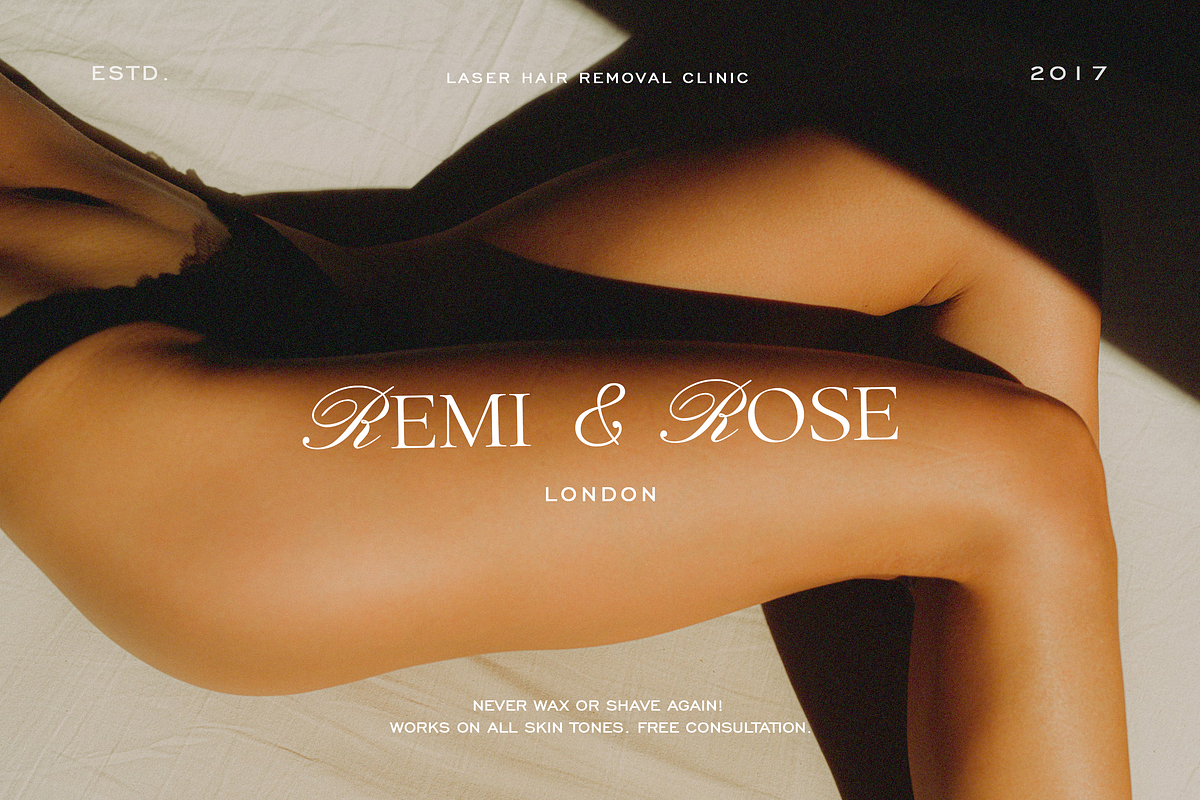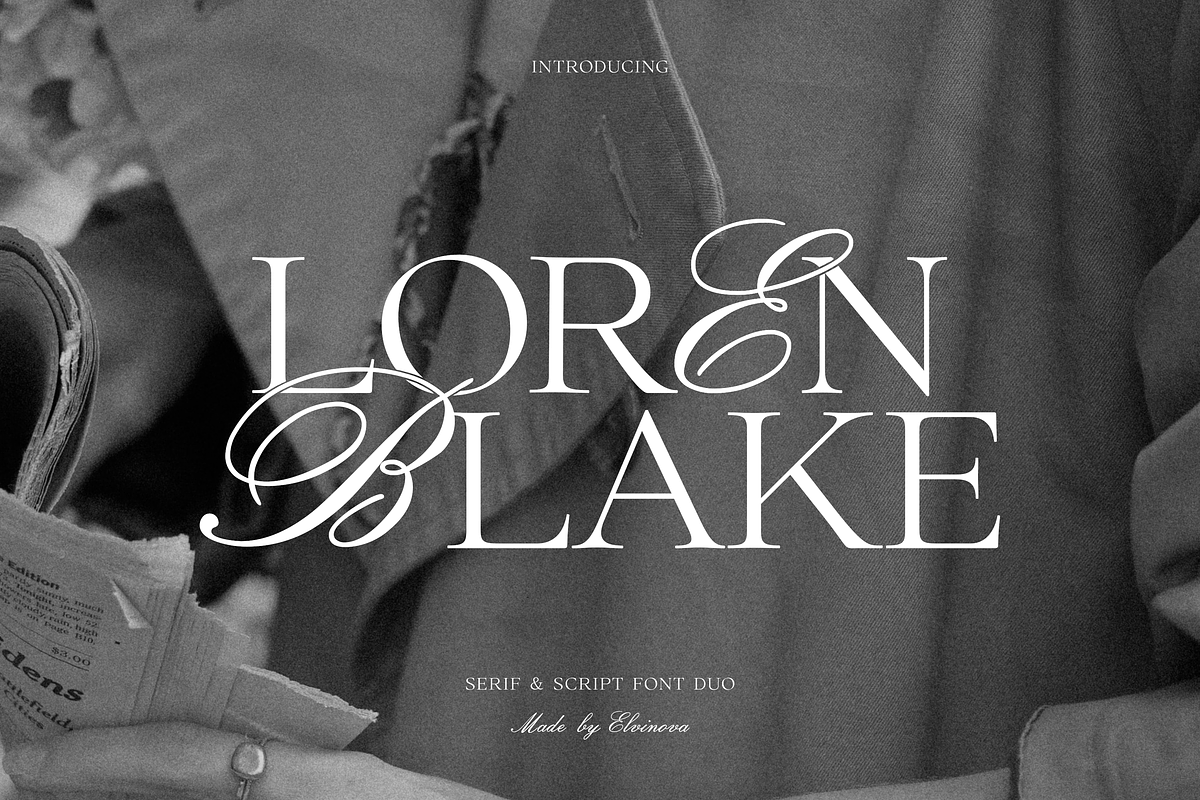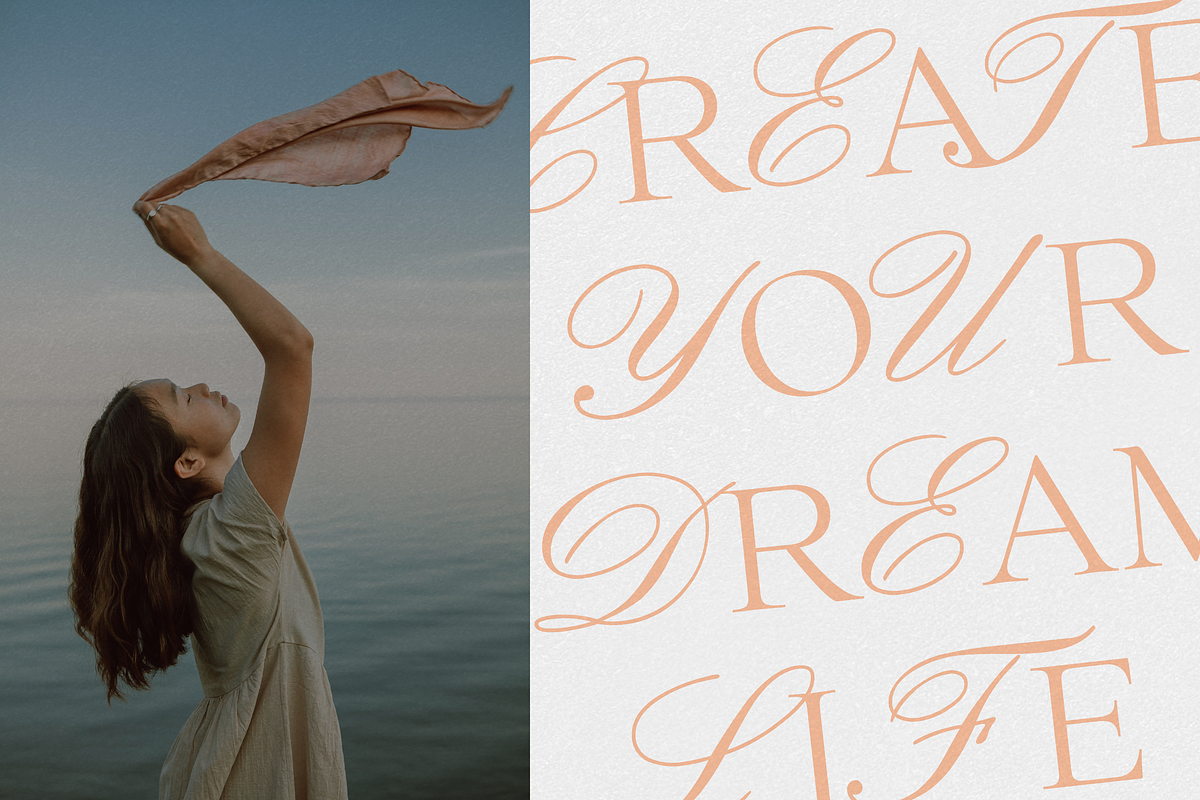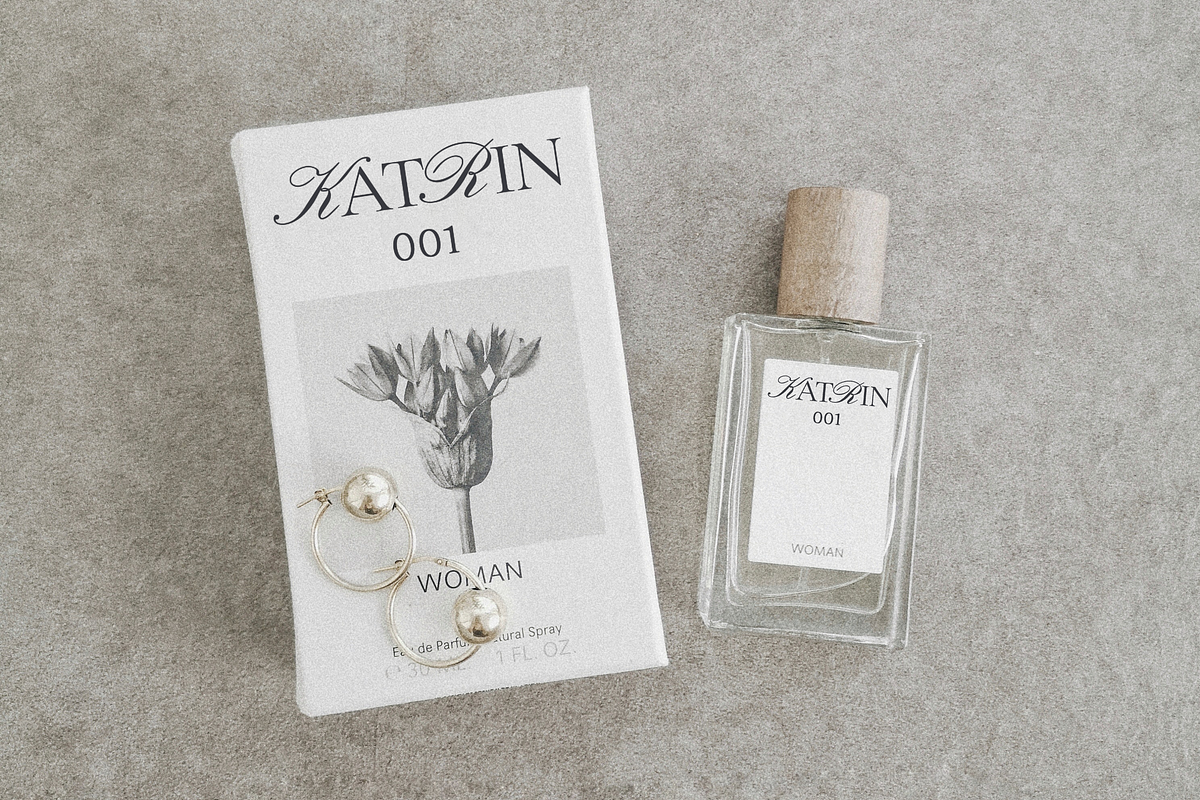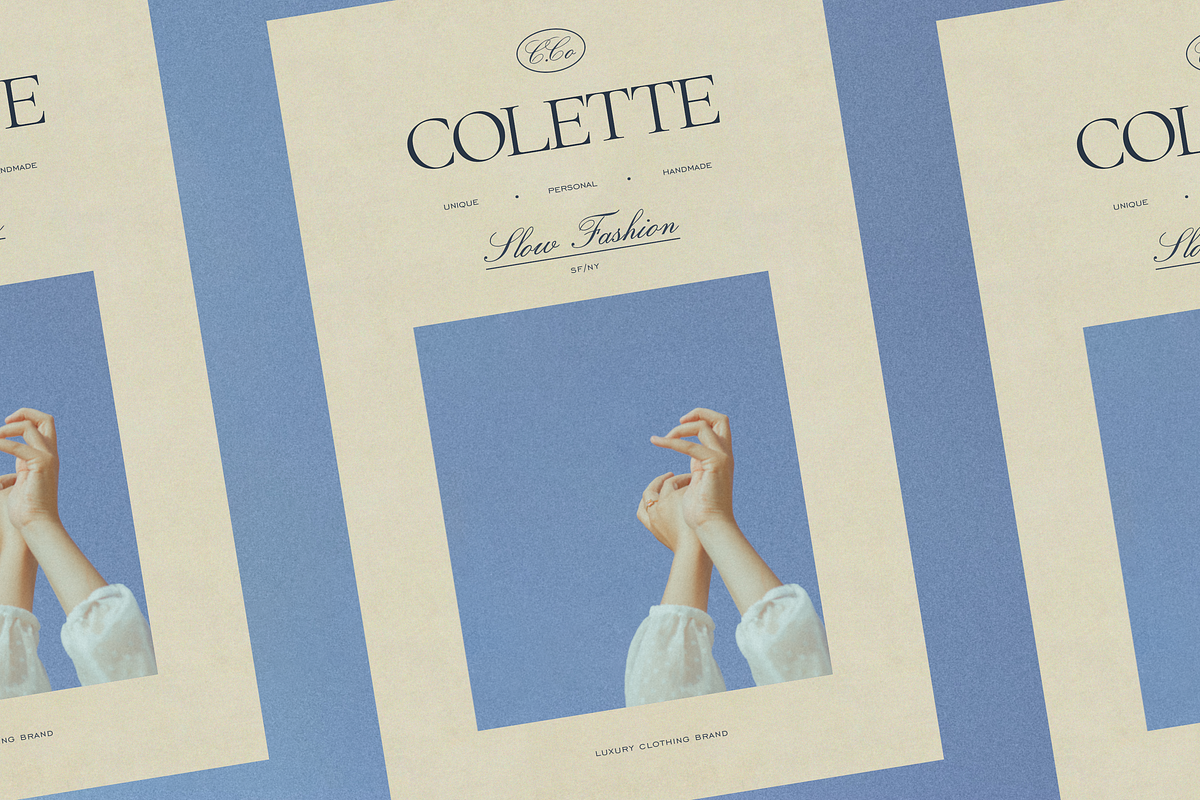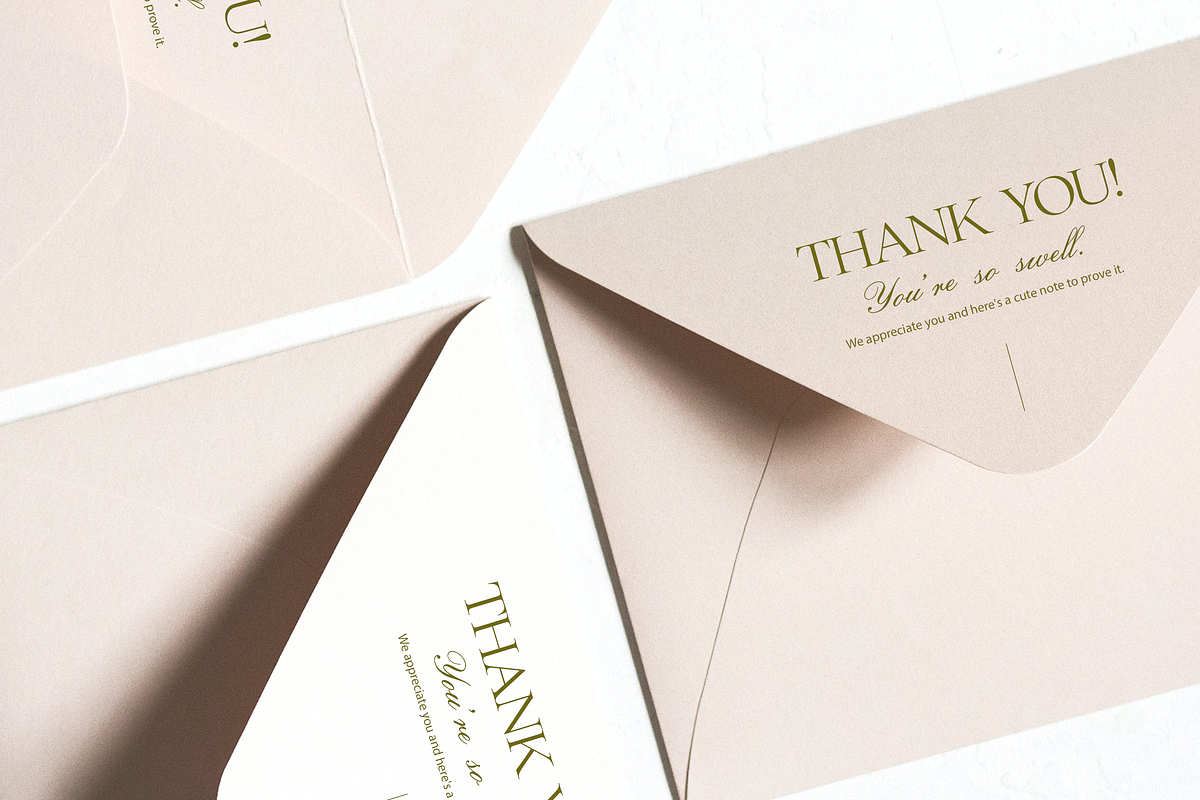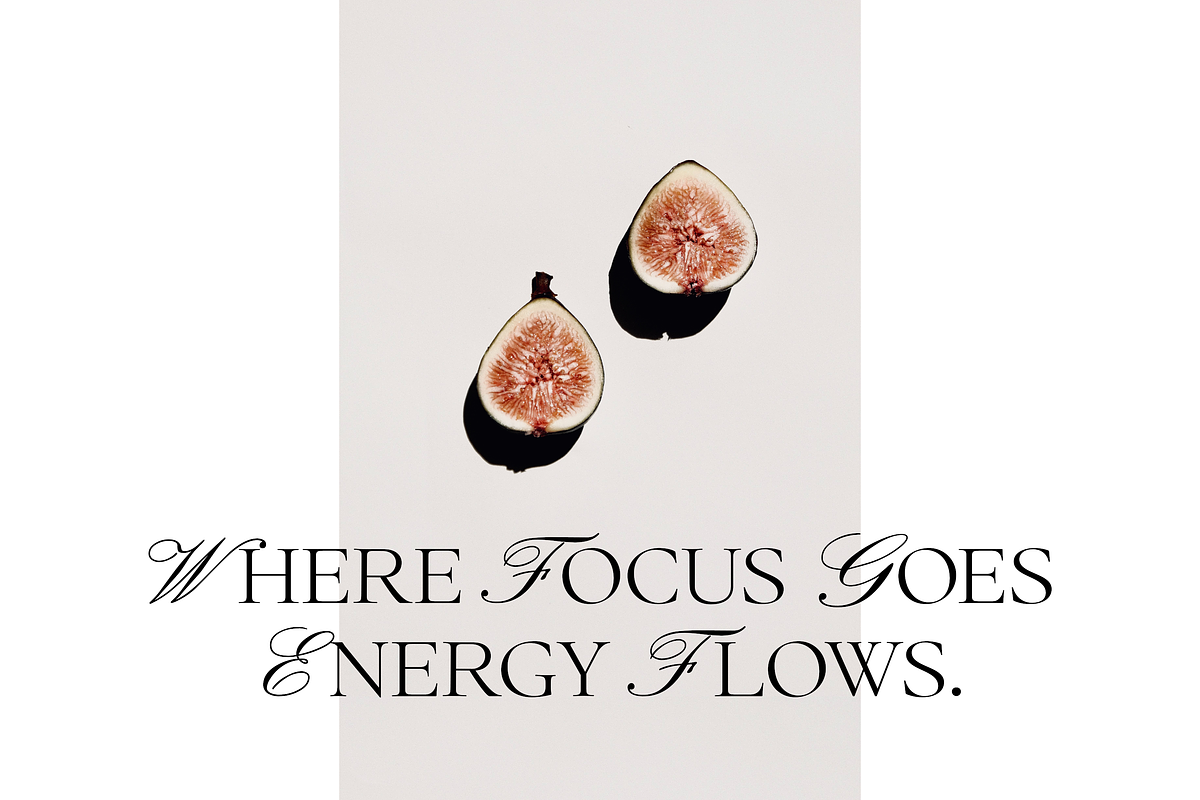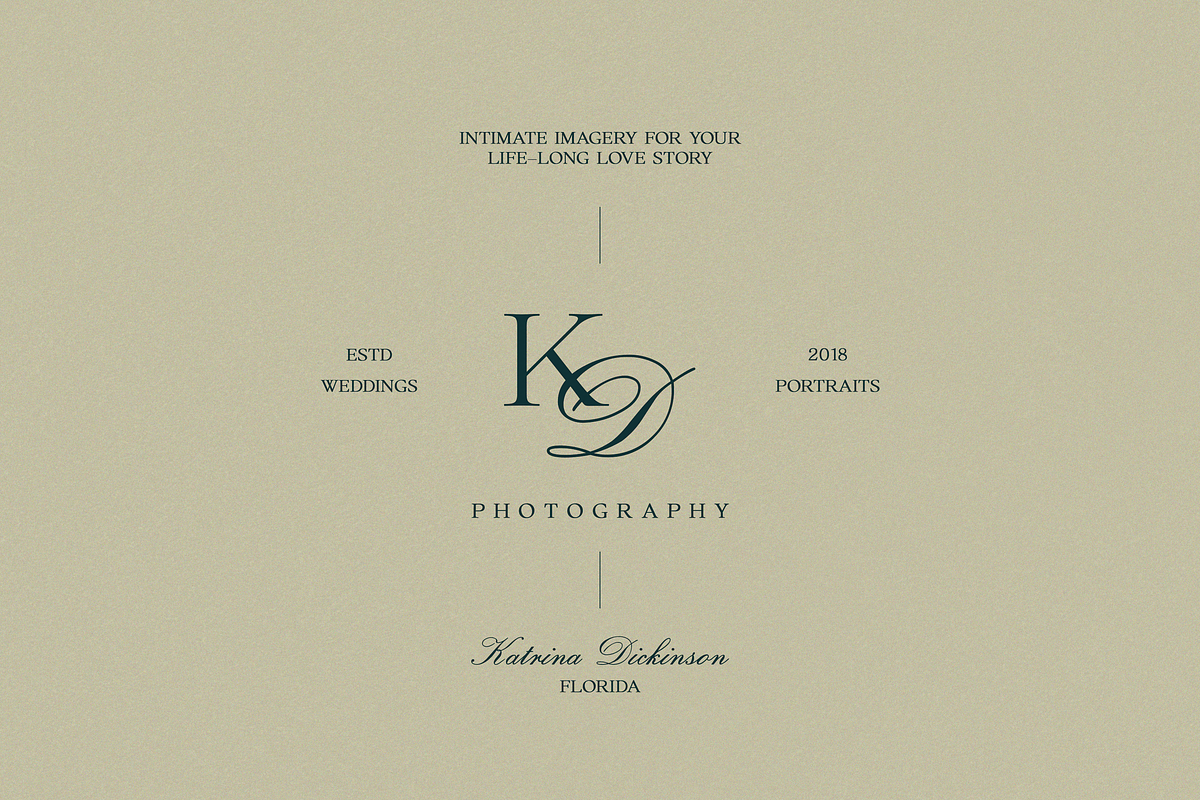
Loren Blake | Font Duo
Loren Blake - Elegant Serif & Script Font Duo.
Serif font is a timeless, classic typography. The capital letters of the script are large and prominent, which gives this typeface a distinct look. Play with your letter spacing to add even more class to your designs. Perfect for titles, branding, wedding invitations, packaging and web design.